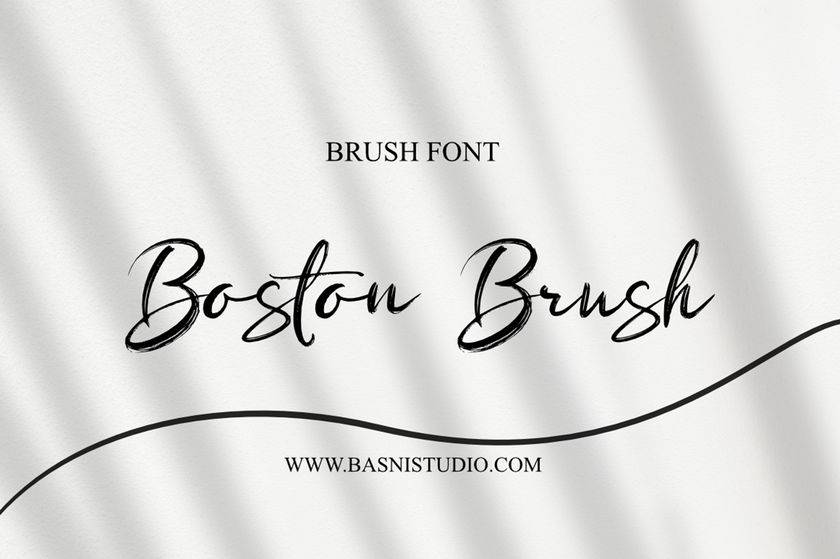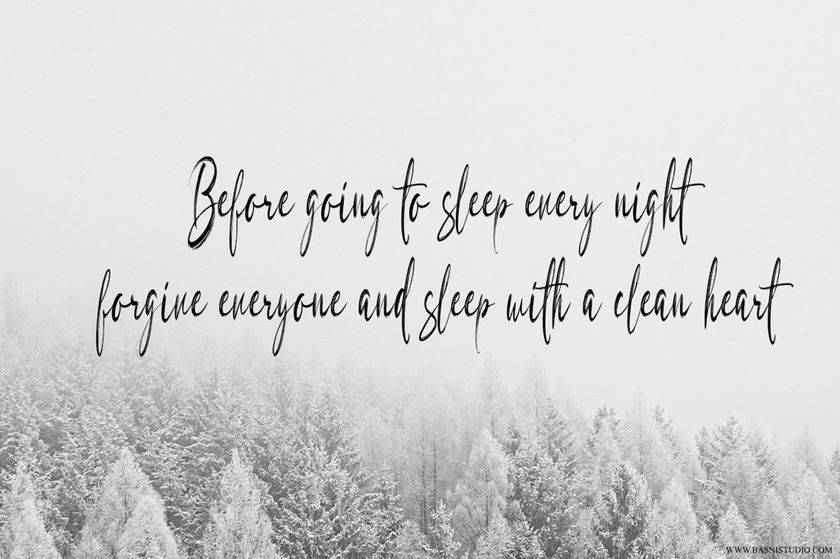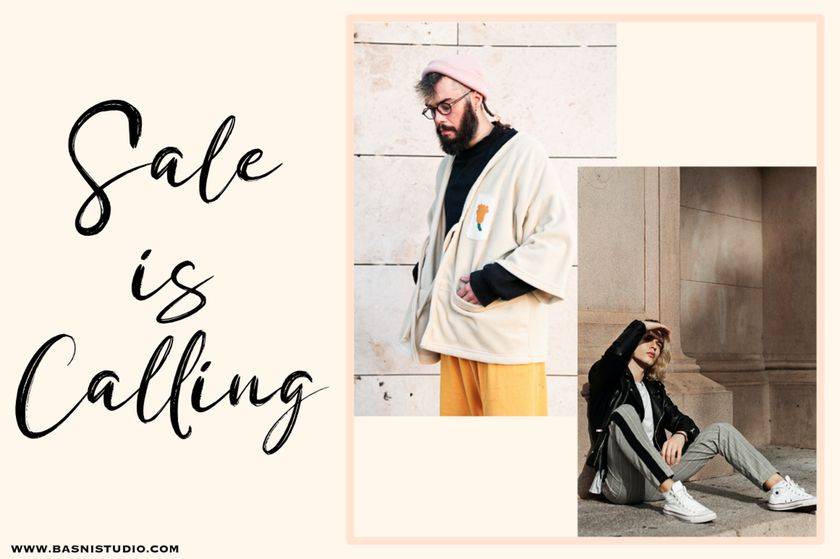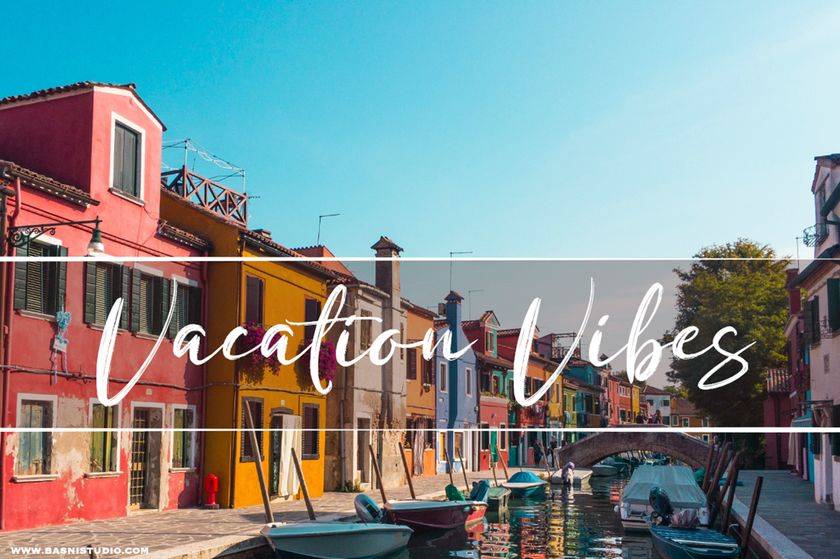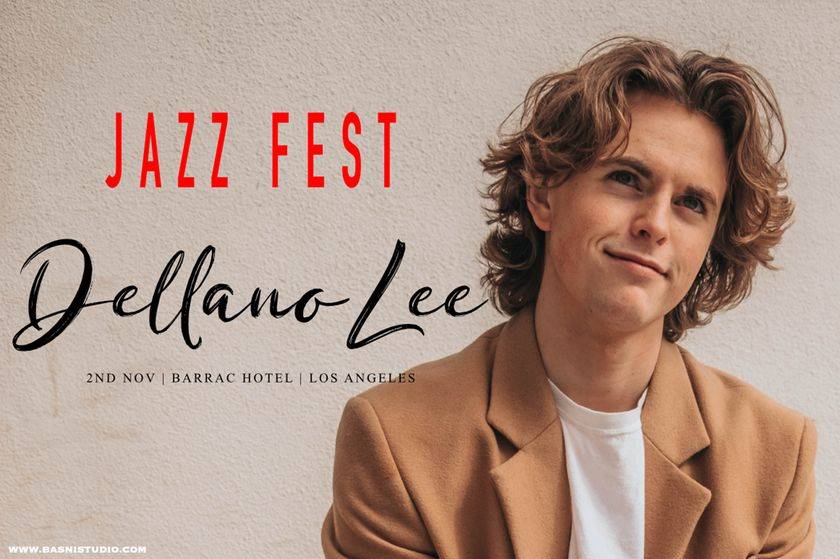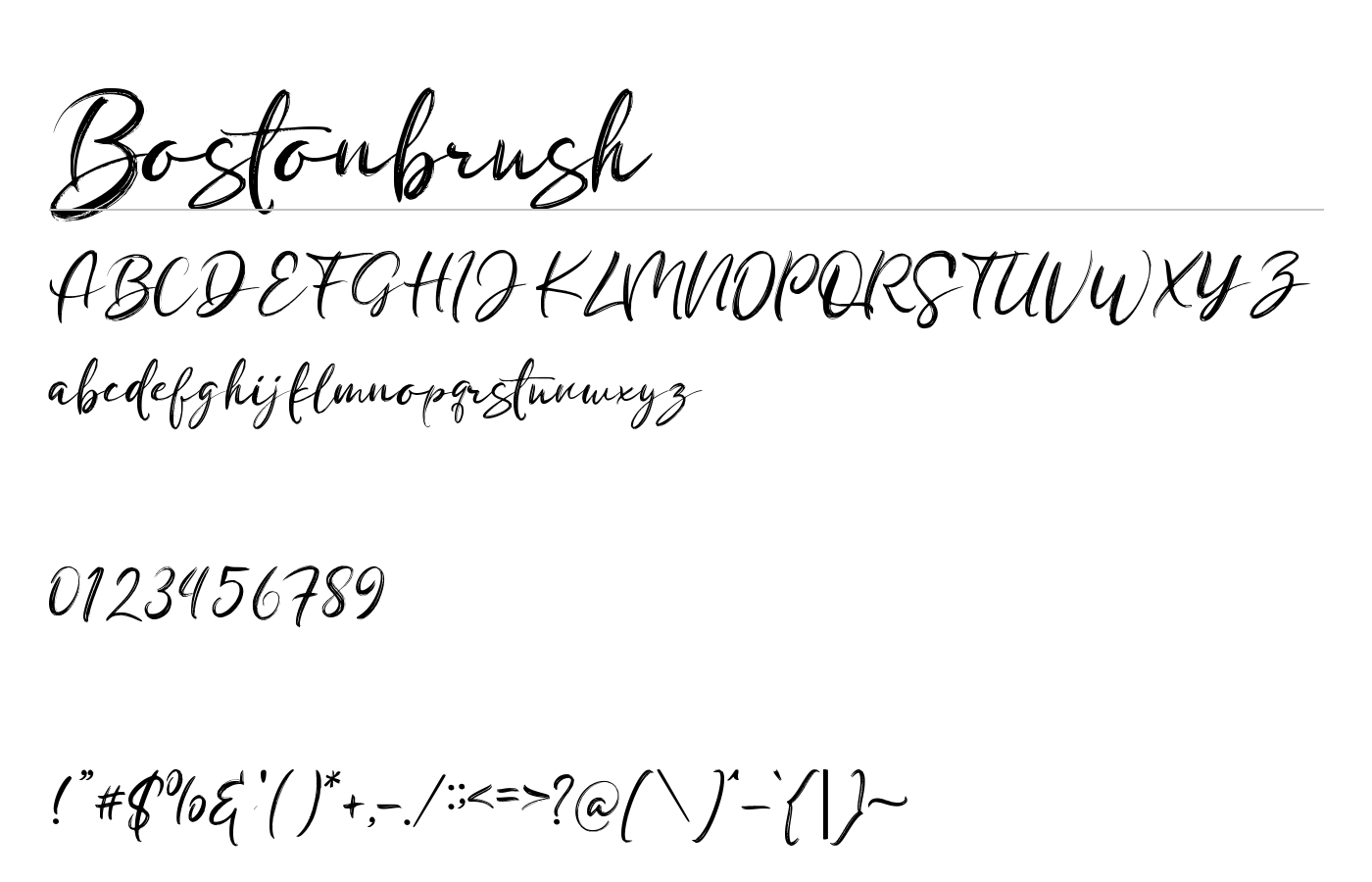
Boston Brush Font is a lively and expressive brush script with smooth, flowing strokes that create a hand-painted, artistic feel. Its casual yet elegant style lends warmth and personality, making it ideal for creative branding, invitations, and headlines where a personal, handcrafted touch is desired. This font works beautifully in designs that want to convey friendliness and modern charm with a dynamic, natural flair.
Boston Brush Font
About Boston Brush Font
| Font family | Boston Brush Font |